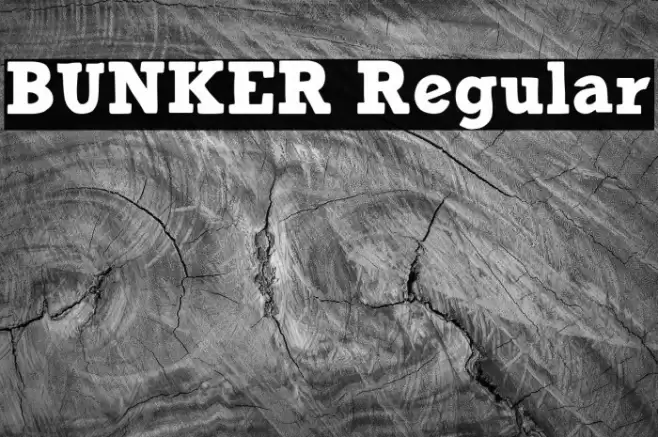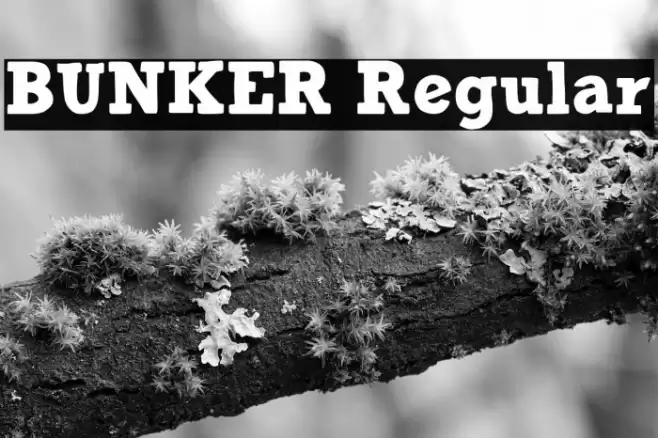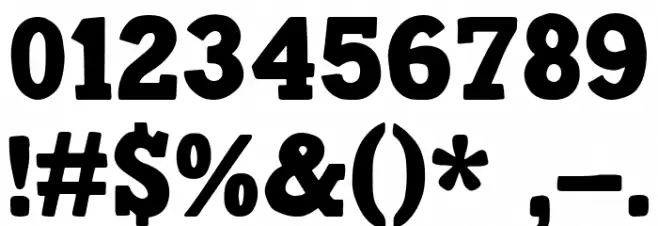
BUNKER Regular Font
BUNKER Regular Description
This font features a bold and robust design with thick, consistent strokes that convey a sense of strength and stability. The characters are well-defined with a slight curvature that adds a touch of softness to the otherwise solid appearance. The uppercase letters are particularly striking, with a commanding presence that makes them ideal for headlines or titles. The lowercase letters maintain the same boldness, ensuring readability and uniformity across different text sizes. The numerals are clear and distinct, making them suitable for various applications, including signage and posters. Special characters are included, providing versatility for different contexts.
A bold, robust font with thick strokes and a strong presence from Cartoon fonts.
- Proposed Projects: Ideal for branding, signage, posters, and headlines where a strong, impactful font is needed.